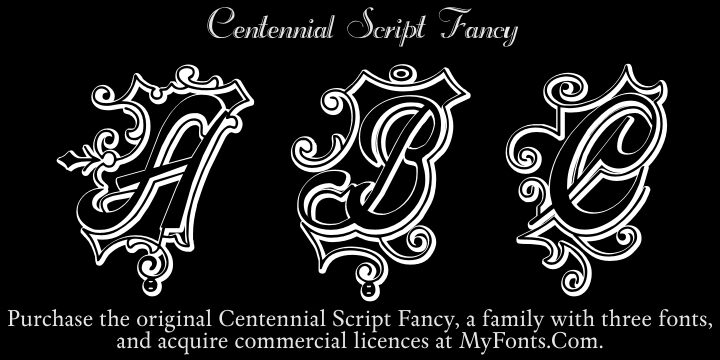
Centennial Script Fancy Three by Iza W. is a free Gothic initials font with elaborate, engraved-looking ornament. Curling flourishes and nested contours crowd every letter.
The dense linework can echo ornamental borders and heraldic illustration in book covers or event invitations. On music merchandise, its tangled forms suit Gothic, metal, or theatrical imagery. Packaging can use an initial as an illustrated emblem, with the scrollwork becoming part of the product's decorative pattern.
Centennial Script Fancy Three was created by Intellecta Design.